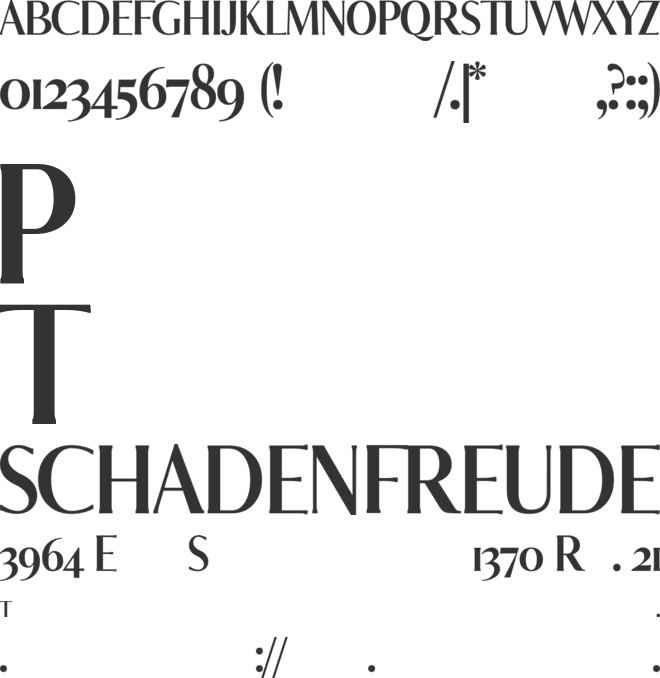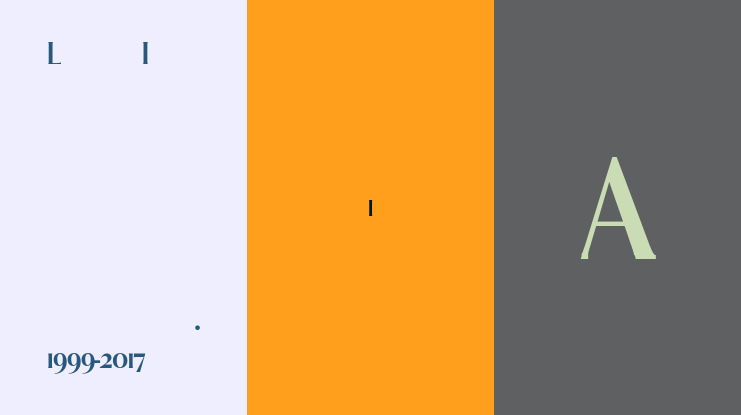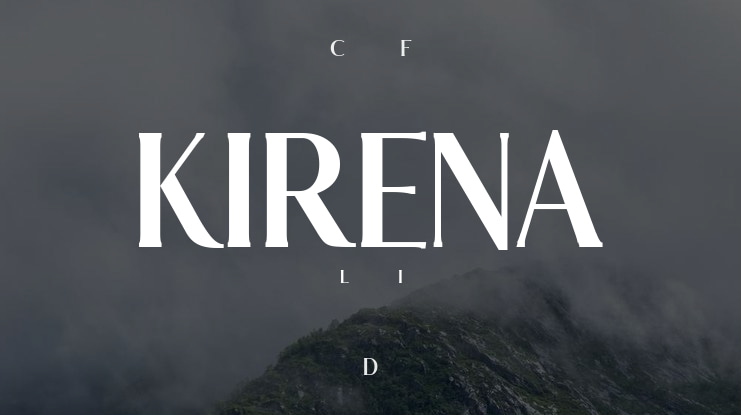
KIRENA Font Family
๐ŸŽจ Font Name: KIRENA by Minimalist Art Studio
๐ŸŽจ Font Description: A graceful serif with classic charm and multilingual eleganceโ€”ideal for refined branding, editorial layouts, and timeless design.
โœ” Complete Latin set + multilingual diacritics
โœ” Alternates, stylistic sets & ligatures
โœ” Numbers, small caps, and extended punctuation
โœ” Bonus italics and family styles